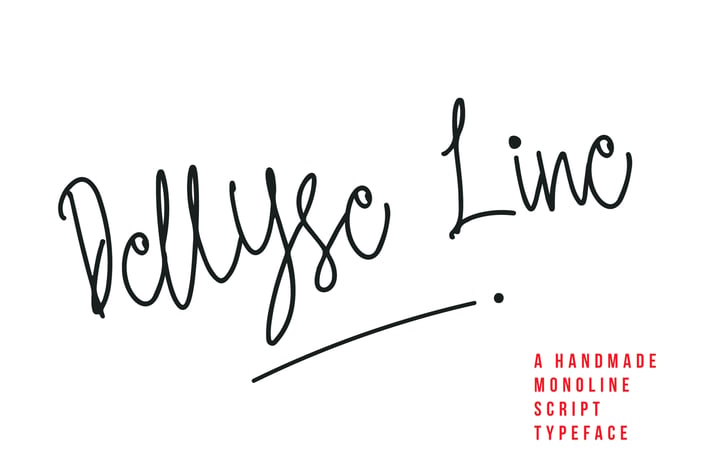
Dellyse Line - A Handmade Monoline Script Typeface
So beautiful on invitation like greeting cards, branding materials, business cards, quotes, posters, and more!